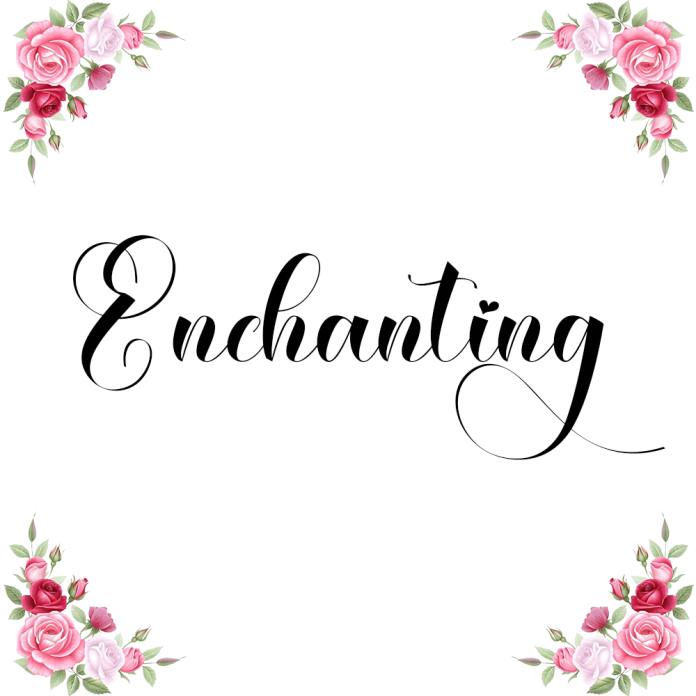
Enchanting Font is a sweet and friendly handwritten font. Fresh and casual, this font is ideal for writing wedding invitations, cards, or any other design that might need a lovely touch.